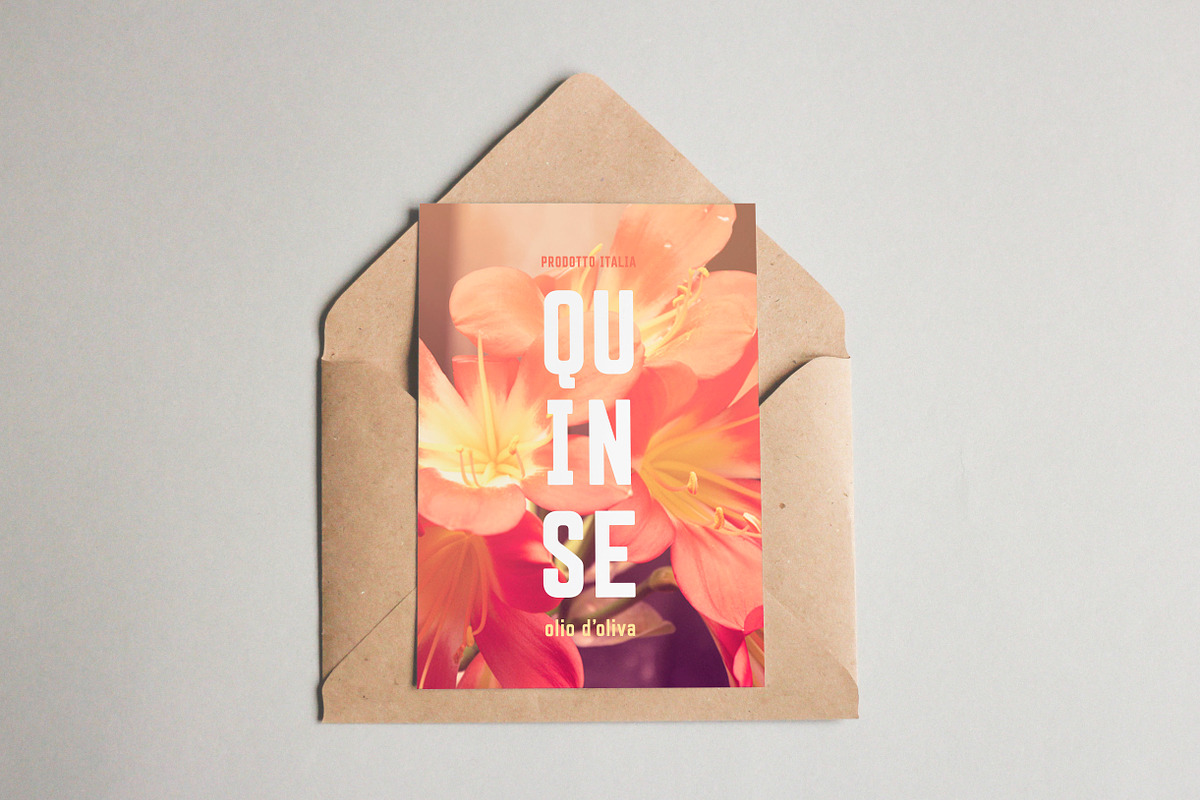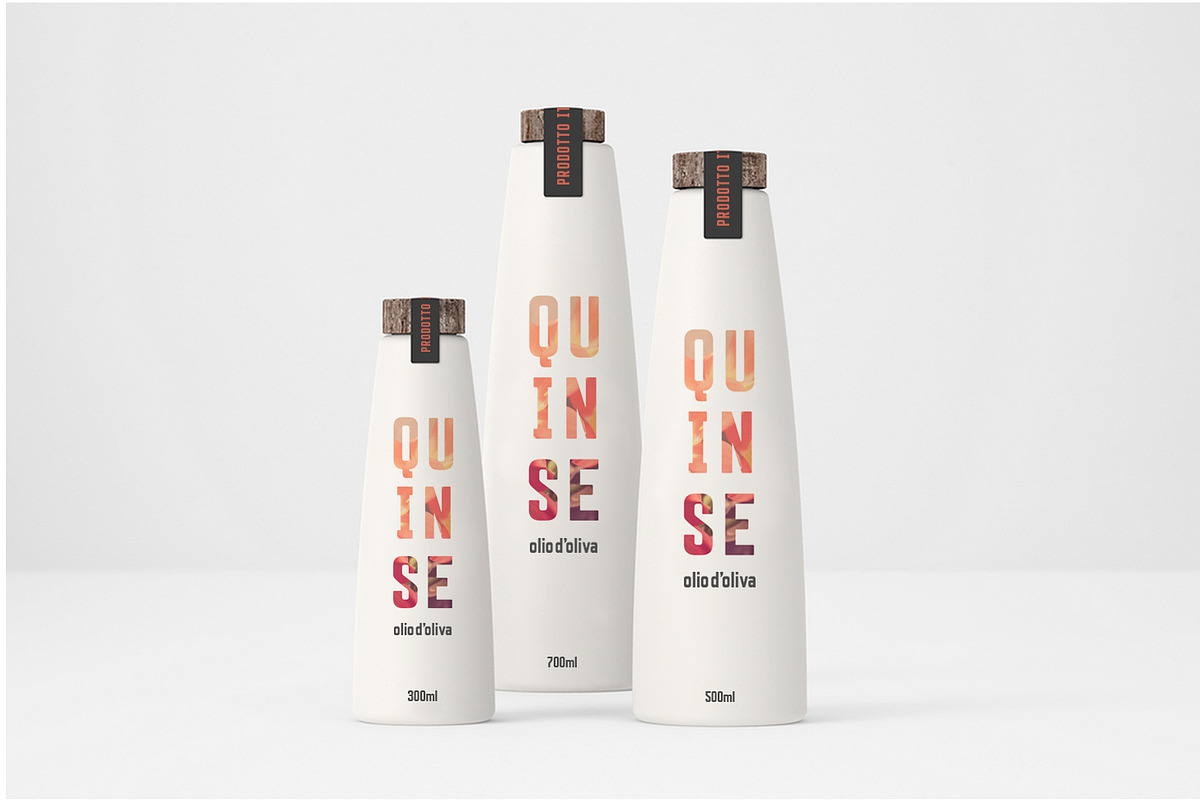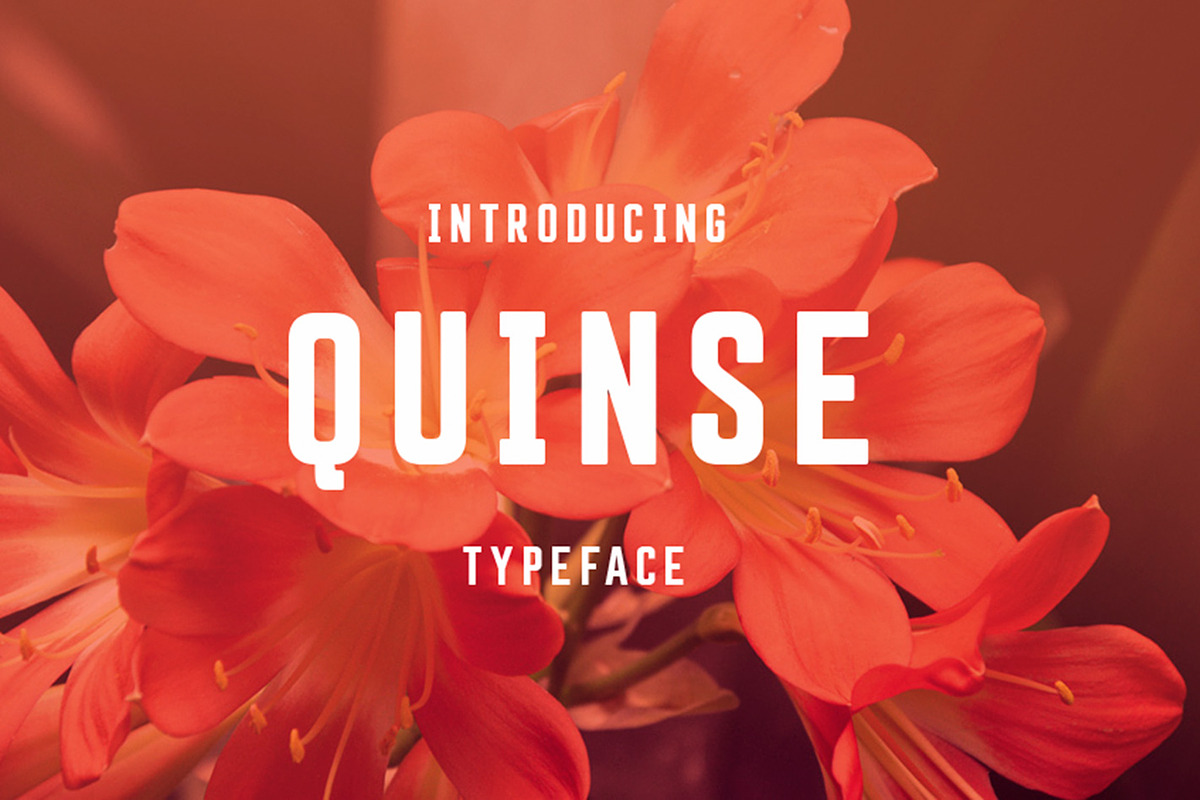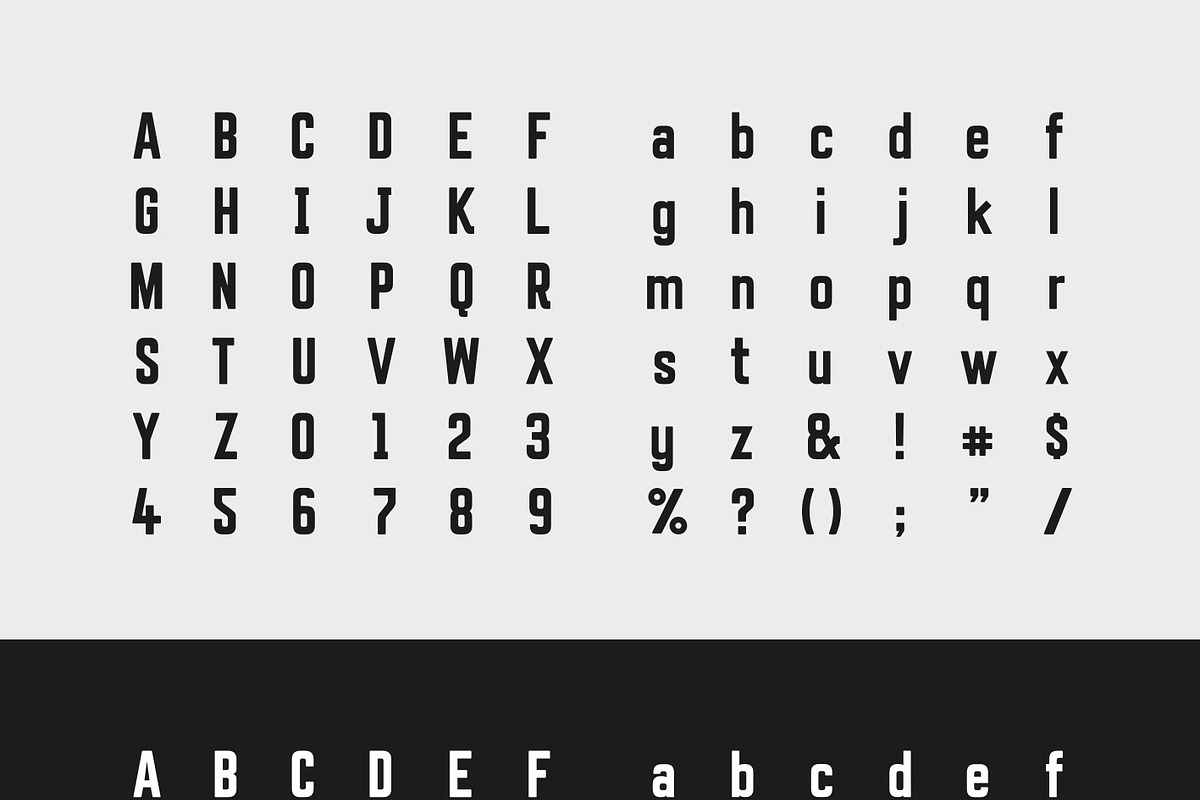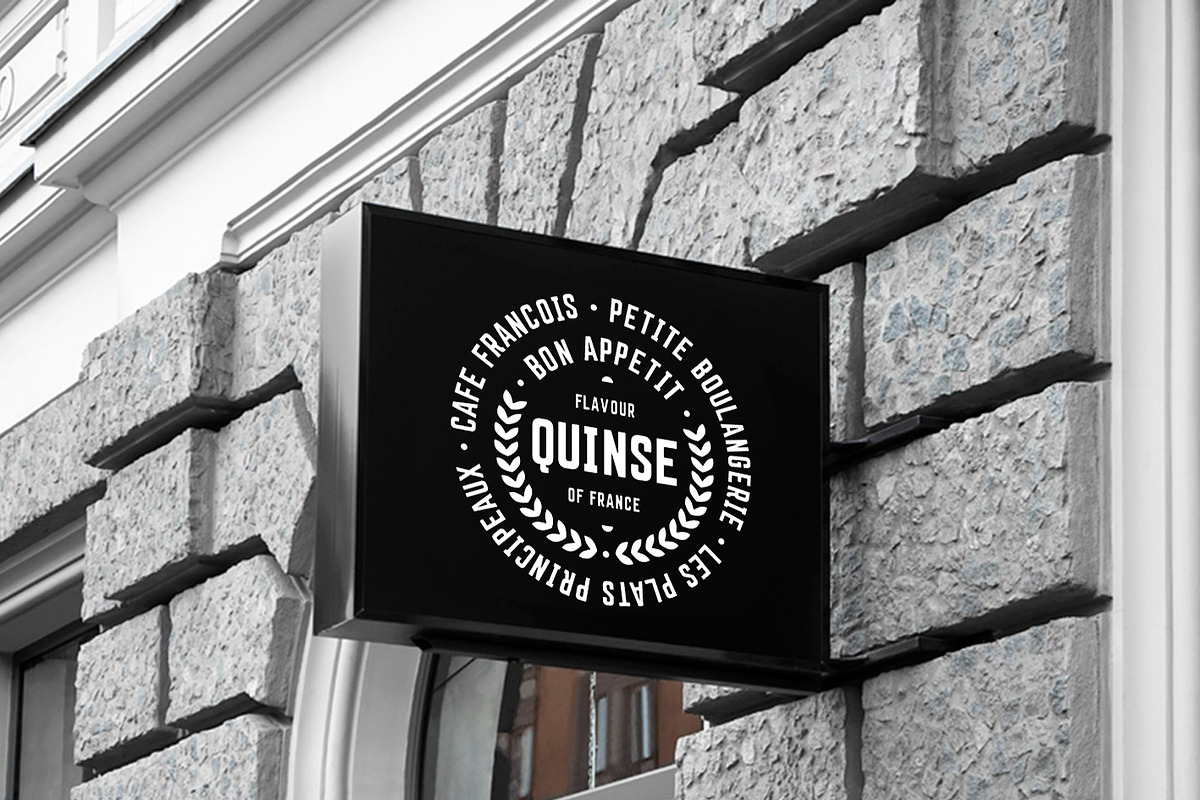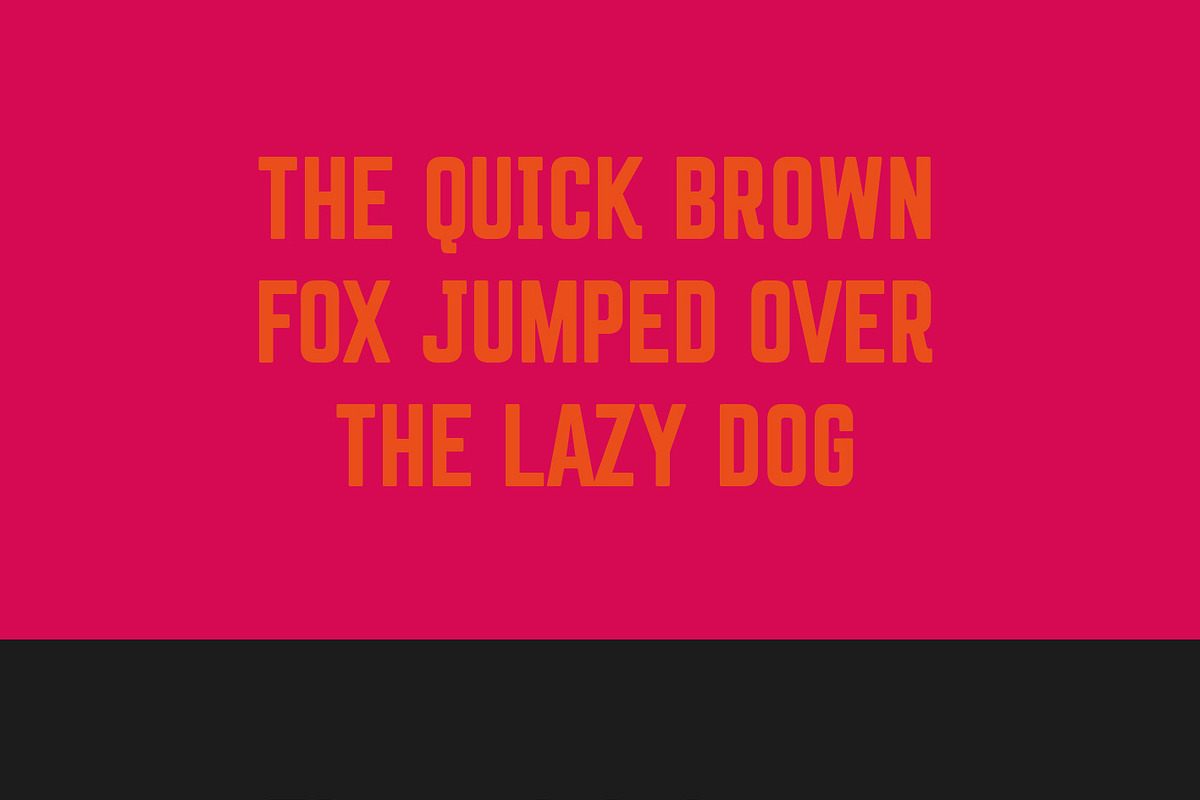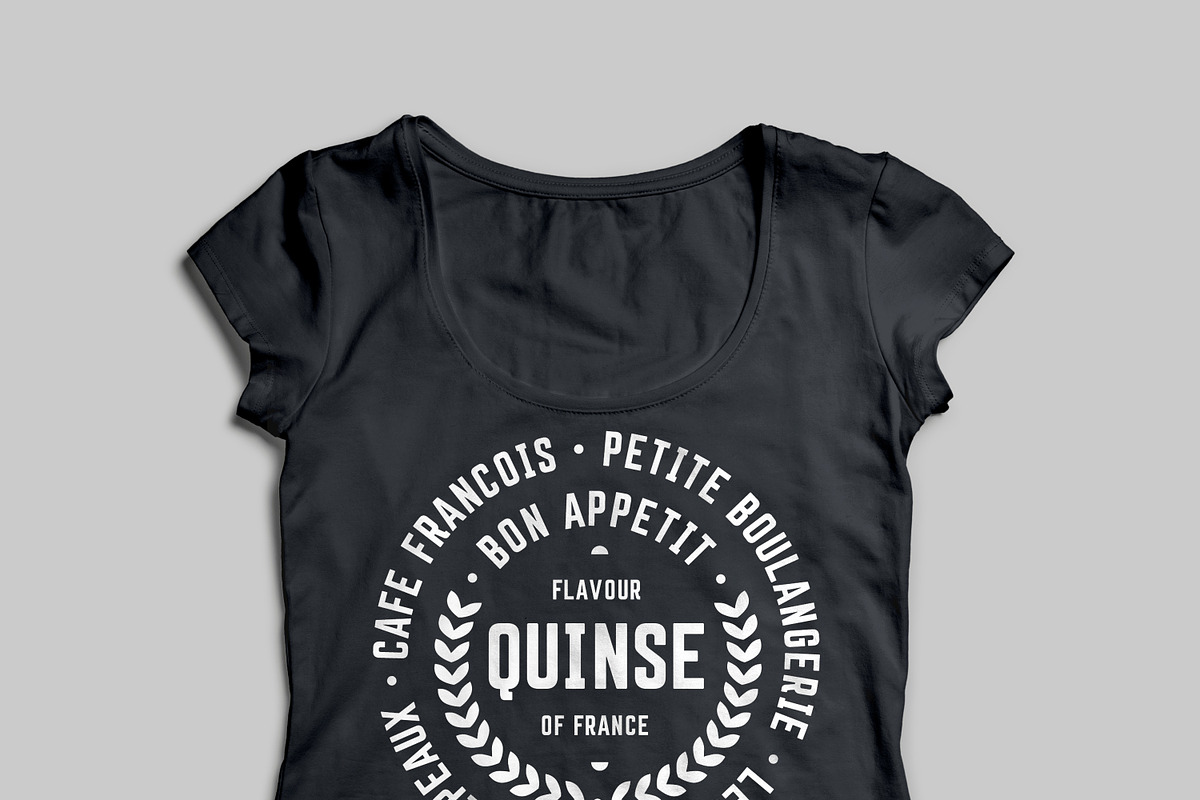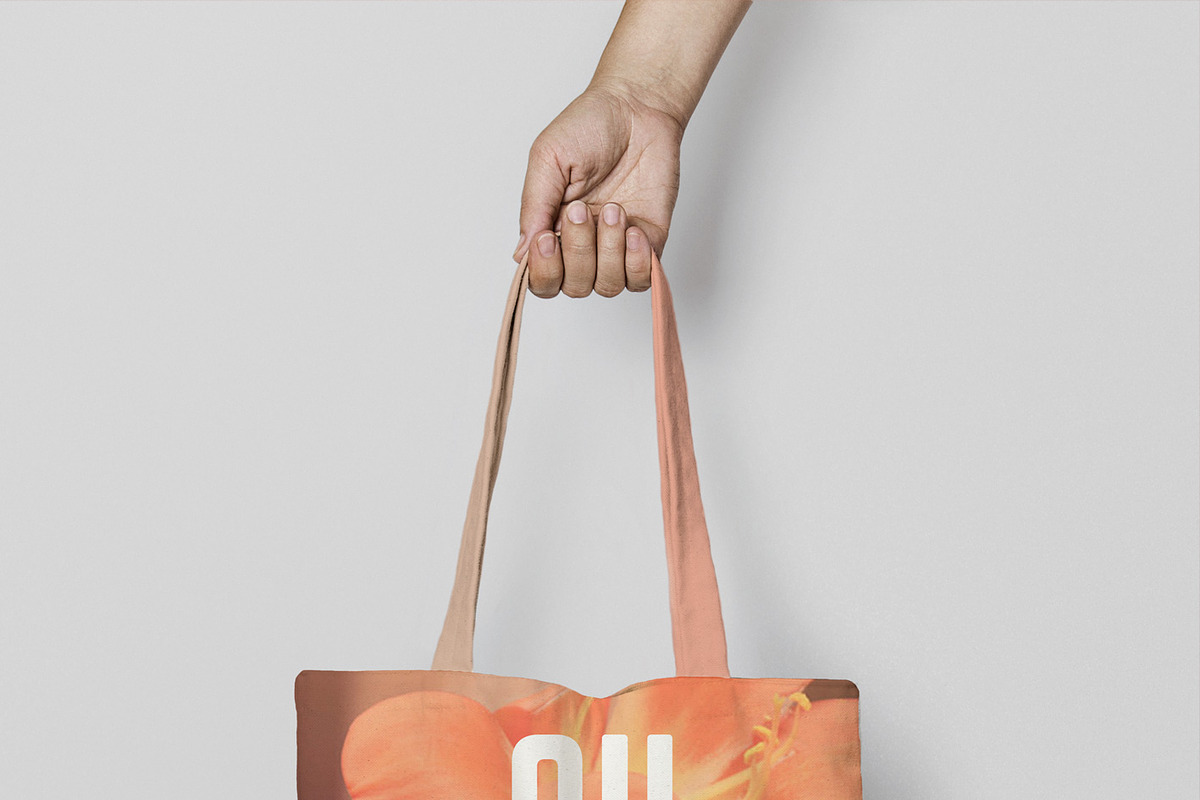
Quinse Font
Quinse Font by Dave Ansett is a font selected for branding, posters, packaging, typography.
- Features: Caps and Lower Case Numerals Symbols and Punctuation More than 75 Glyphs Quinse Extras: Six high quality logo templates featuring
- Caps and Lower Case
- Symbols and Punctuation
- More than 75 Glyphs
- Quinse Regular
Why Quinse Font is worth a look
Quinse Font by Dave Ansett fits naturally into Branding, posters, packaging, typography.